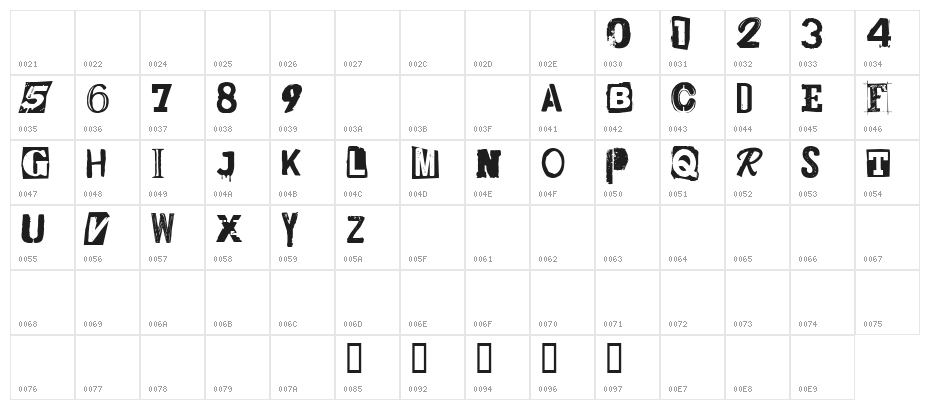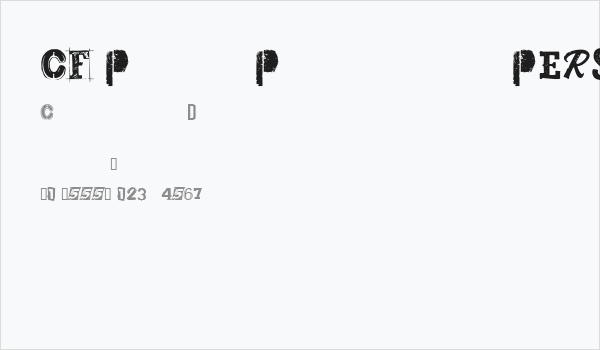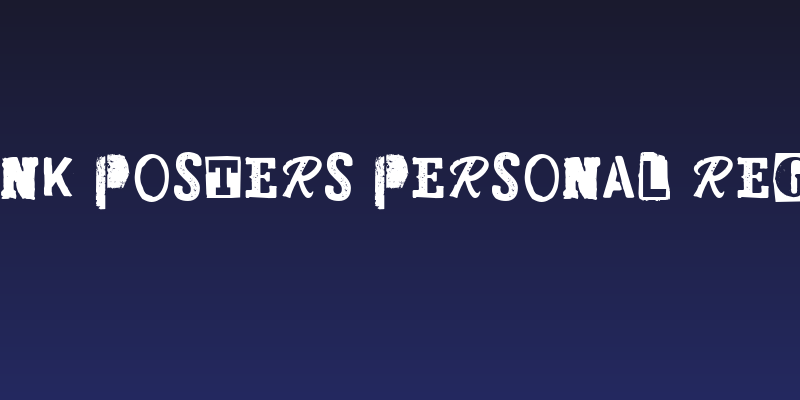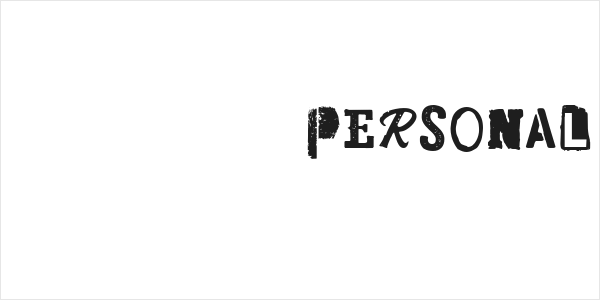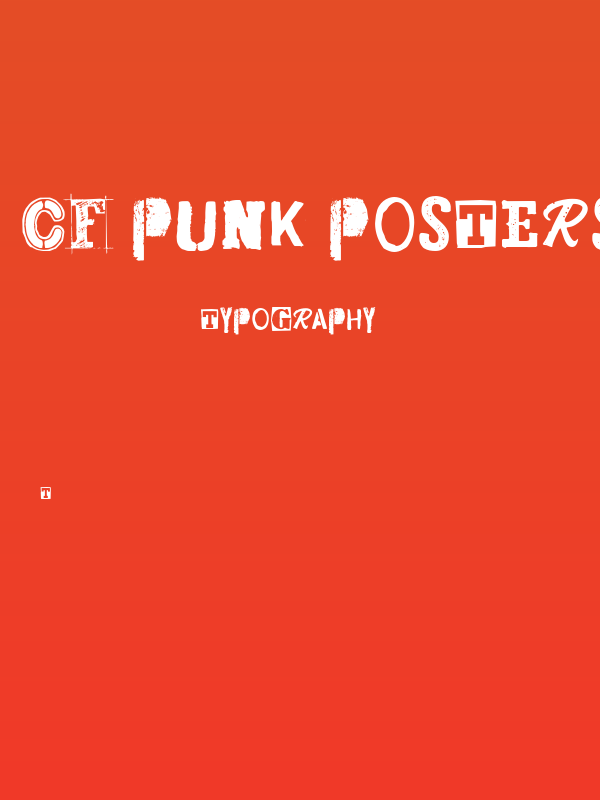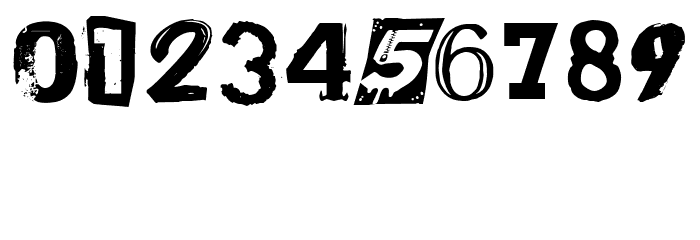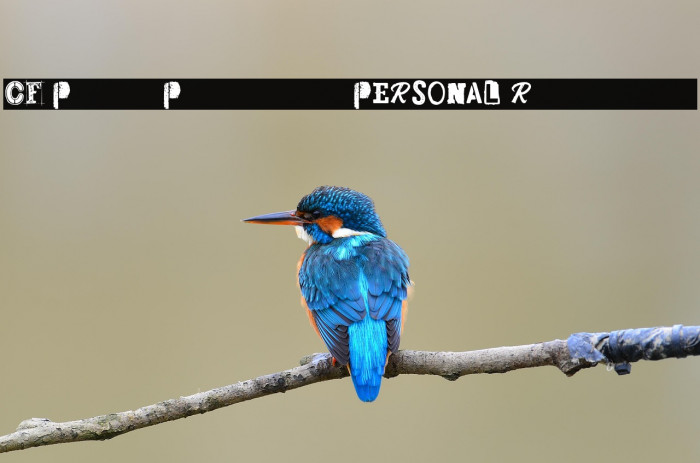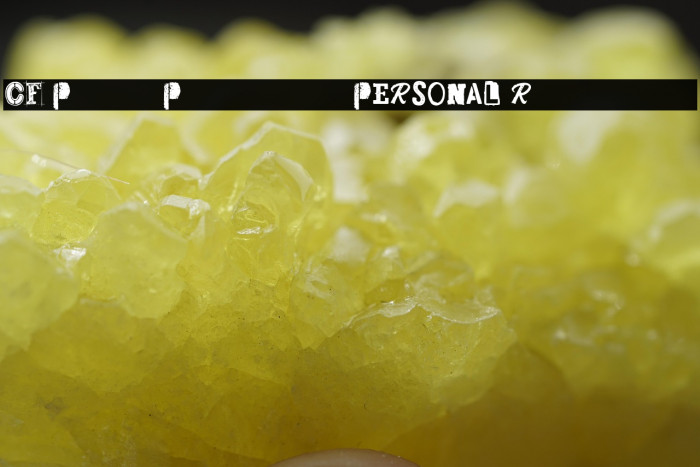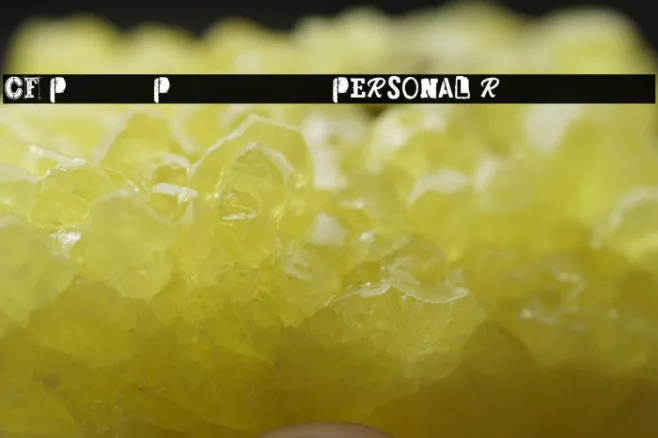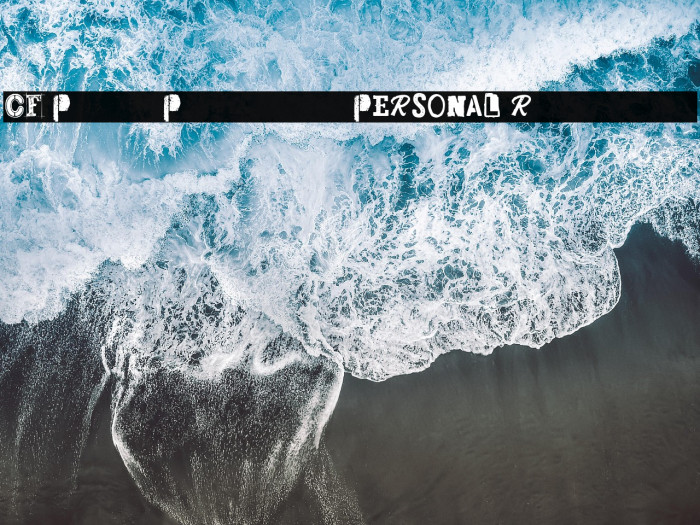
CF Punk Posters PERSONAL Regular Font
CF Punk Posters PERSONAL Regular Description
This font exhibits a bold and eclectic style, reminiscent of punk rock aesthetics. Each character is uniquely designed, often incorporating distressed textures, irregular shapes, and a mix of solid and outlined forms. The uppercase letters feature a variety of artistic elements, such as splatters, drips, and cut-out effects, giving the font a rebellious and energetic vibe. The numbers follow a similar pattern, with each digit having its own distinct flair. This font is perfect for projects that aim to capture an edgy, unconventional look.
| Overall Style | Punk, Edgy, Rebellious |
| Use Case | Headlines, Posters, Branding |
| Proposed Projects | Ideal for music posters, album covers, street art designs, and edgy branding projects. |